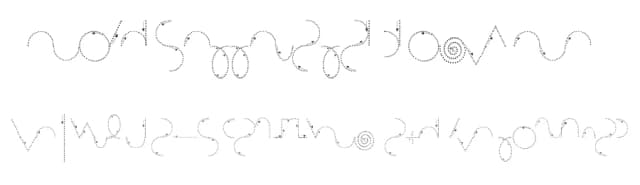
About Maternellecolor Graphisme Font
Maternellecolor Graphisme is a dingbat font composed of 653 glyphs designed for decorative and symbolic typographic work. The collection spans 292+ Latin-based languages, making it suitable for multilingual projects and international creative applications. Rather than a limited emoji set or generic symbol font, this offering provides genuine design depth for ornamental and illustrative purposes.
With this many symbols on hand, Maternellecolor Graphisme proves particularly suited to scrapbooking layouts, greeting card projects, vinyl decal creation, and decorative borders in printed educational materials. Designers and crafters benefit from having numerous symbol options at hand, eliminating the need to source external graphics or create custom illustrations. Each symbol maintains visual coherence, allowing them to work together in layered compositions without jarring style shifts or aesthetic conflicts. Speed becomes a practical advantage too: building rich, ornamental pages becomes faster when symbols are readily available as keyboard characters rather than requiring image import workflows or external asset sourcing.
Maternellecolor Graphisme Font is a versatile dingbats font that works for both headings and body text. Pair it with a contrasting sans-serif or serif font to add visual interest and a clear distinction between titles and body copy.